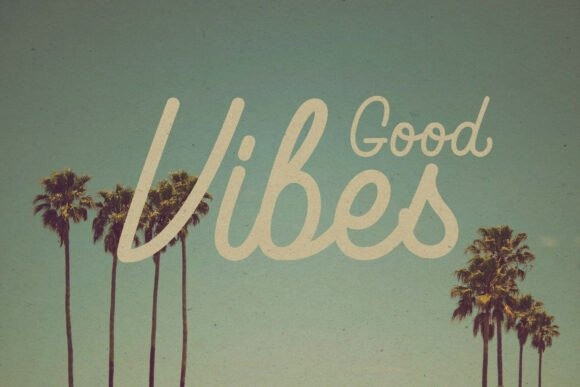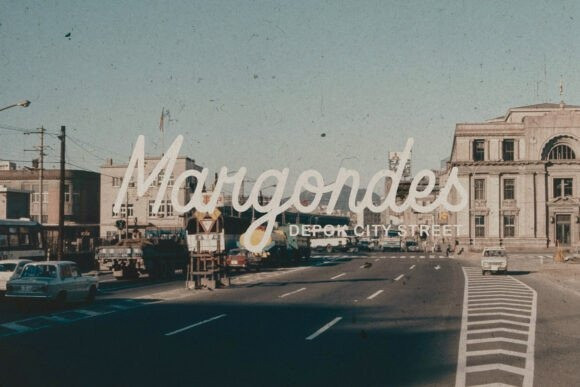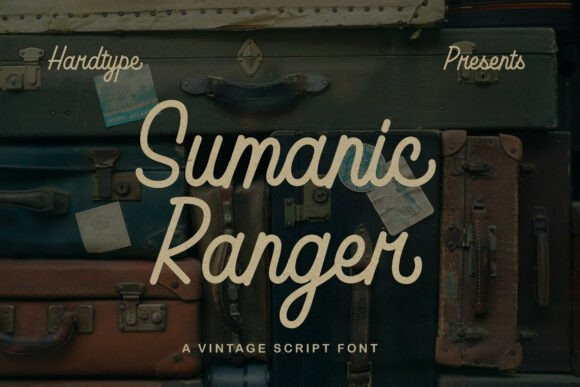
Sumanic Ranger Font
Sumanic Ranger Font is an adventurous Vintage Script Font that captures the spirit of exploration and classic mid-century travel.
This typeface features a smooth, semi-connected flow and an authentic hand-lettered texture, giving it a warm, nostalgic feel reminiscent of old travel posters and signage. The consistent stroke weight and slightly condensed structure ensure a high degree of legibility.
Ideal for heritage branding, retro product packaging (especially beverages and apparel), travel blogs, and designs requiring a sophisticated, vintage, masculine vibe.
The authentic curves and clean finish make it highly versatile for both digital and print. Use Sumanic Ranger to inject your projects with a sense of timeless adventure, handcrafted quality, and refined mid-century nostalgia.